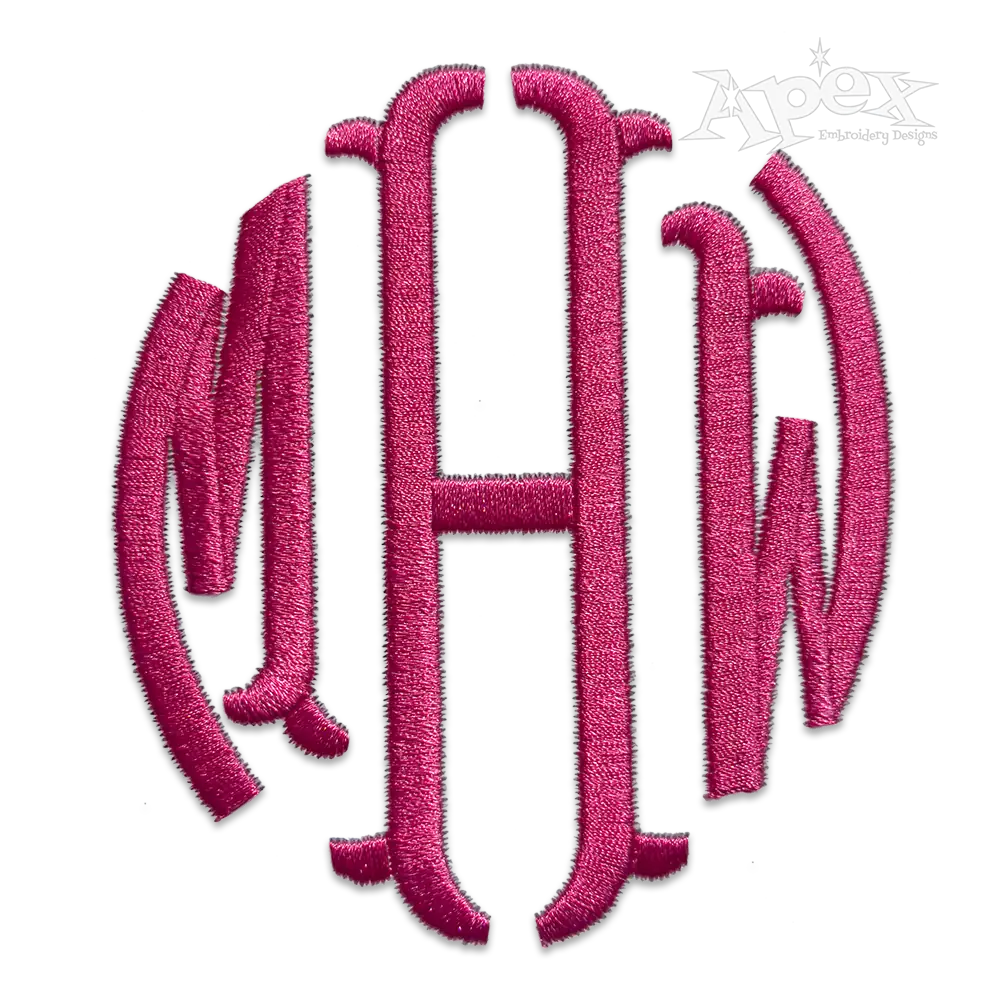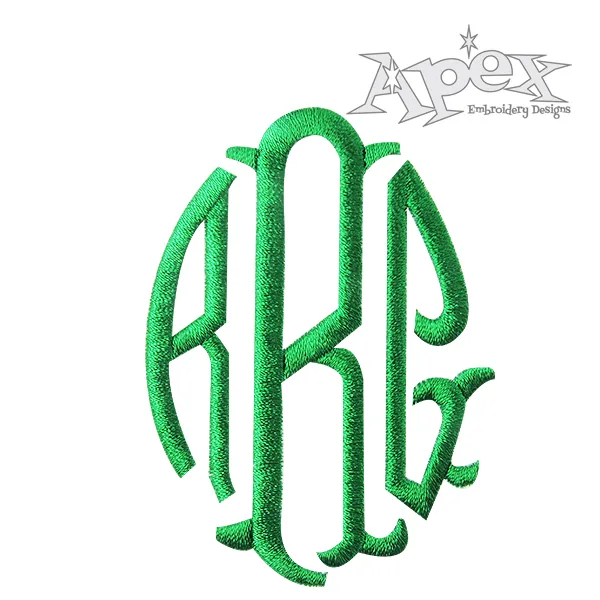
Grateful Monogram Embroidery Fonts
At the digitizing easel, the Grateful Monogram was born from an appreciation for timeless hospitality and gracious entertaining—a classic three-letter curved monogram designed to transform everyday fabrics into cherished heirlooms. We sculpted each character to embody warmth and celebration, giving the outer letters a soft, convex contour that cradles the stately center initial into a graceful, self-framing silhouette. Whether rendered in tone-on-tone ivory silk across crisp hemstitched napkins or in luminous jewel tones on holiday dining runners, its balanced architecture captures the spirit of bespoke gathering and personalized gifting.
Project Ideas for Grateful Monogram
Designed for celebration and timeless distinction, this satin stitch alphabet elevates a broad spectrum of embroidered textiles:
- Luxury Table Linens: Stitch matching family initials onto Thanksgiving dinner napkins, linen placemats, and bespoke runners for memorable entertaining.
- Heirloom Bedding & Bath: Personalize 400-thread-count percale pillowcases, duvet borders, and plush Egyptian cotton bath sheets for an effortless five-star retreat feeling.
- Bridal & Trousseau Keepsakes: Monogram bridal party silk robes, honeymoon loungewear, and wedding day keepsake handkerchiefs.
- Everyday Luxury Gifting: Personalize structured canvas totes, plush cashmere wraps, and velvet holiday stockings with a timeless, high-end signature.
Achieving a balanced, professional finish begins with intentional composition and letter arrangement:
- Dinner & Cocktail Napkins: Position the monogram diagonally across the lower-right corner, approximately 1.5 to 2 inches from the hemstitched edge, with the center letter oriented to face the guest when folded.
- Towels & Bath Linens: Center the design horizontally, 2 to 3.5 inches above the woven dobby border or lower hem for an authentic designer bath presentation.
- Pillow Shams & Duvets: Place the 4-inch scale dead-center on decorative boudoir pillows, or along the outer vertical flange of standard shams for tailored elegance.
- Bespoke Apparel: Float the 2-inch format over the left chest pocket area or set a discreet 1-inch to 2-inch mark upon a left shirt cuff.
Grateful Monogram Craft & Letterform Details
True monogram artistry depends on the unseen mechanics of stitch architecture. For the Grateful Monogram, our digitizing philosophy focused on light refraction and sculptural fullness. Each column is calibrated with radial satin stitch pathing that follows the natural swell and taper of classical calligraphy, allowing thread to capture ambient light with a brilliant, ribbon-like gleam.
The Left and Right flanking letters have been sculpted with a subtle inward bias and bowed outer strokes, creating an effortless arched frame around the commanding center initial without crowding. Micro-feathered junction points prevent heavy thread buildup where strokes converge, ensuring your machine glides through stitching with zero bulk. Generous pull-compensation and pristine underlay anchoring keep every curve crisp, symmetrical, and enduring through countless washings.